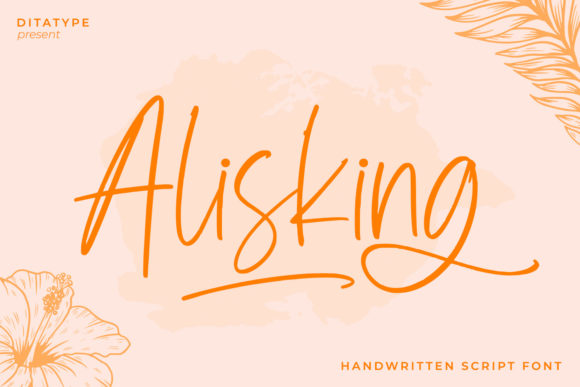
Welcome to the realm of Alisking Font, where written elegance takes center stage. This exquisite script font, meticulously crafted by Ditatype, is the epitome of grace and sophistication, designed to captivate and inspire your creative endeavors.
Immerse yourself in the captivating charm of this flowing handwritten font, where each letter dances across the page with an unmatched allure. Alisking's graceful strokes and elegant touch will add a touch of timeless beauty to your projects, making them stand out from the ordinary.
Unleash your creativity and let Alisking's distinct style guide you as you craft stunning designs that resonate with your audience. From heartfelt love letters to captivating social media posts, Alisking's versatility knows no bounds, transforming your words into works of art.
Whether you're a seasoned designer seeking a unique touch or a budding artist exploring your creative side, Alisking is the perfect companion. Its user-friendly nature makes it accessible to all, allowing you to effortlessly create designs that exude charm and sophistication.
So, embrace the beauty of Alisking Font today and embark on a creative journey like no other. Let your imagination soar as you weave words into enchanting designs, leaving a lasting impression on all who encounter them.